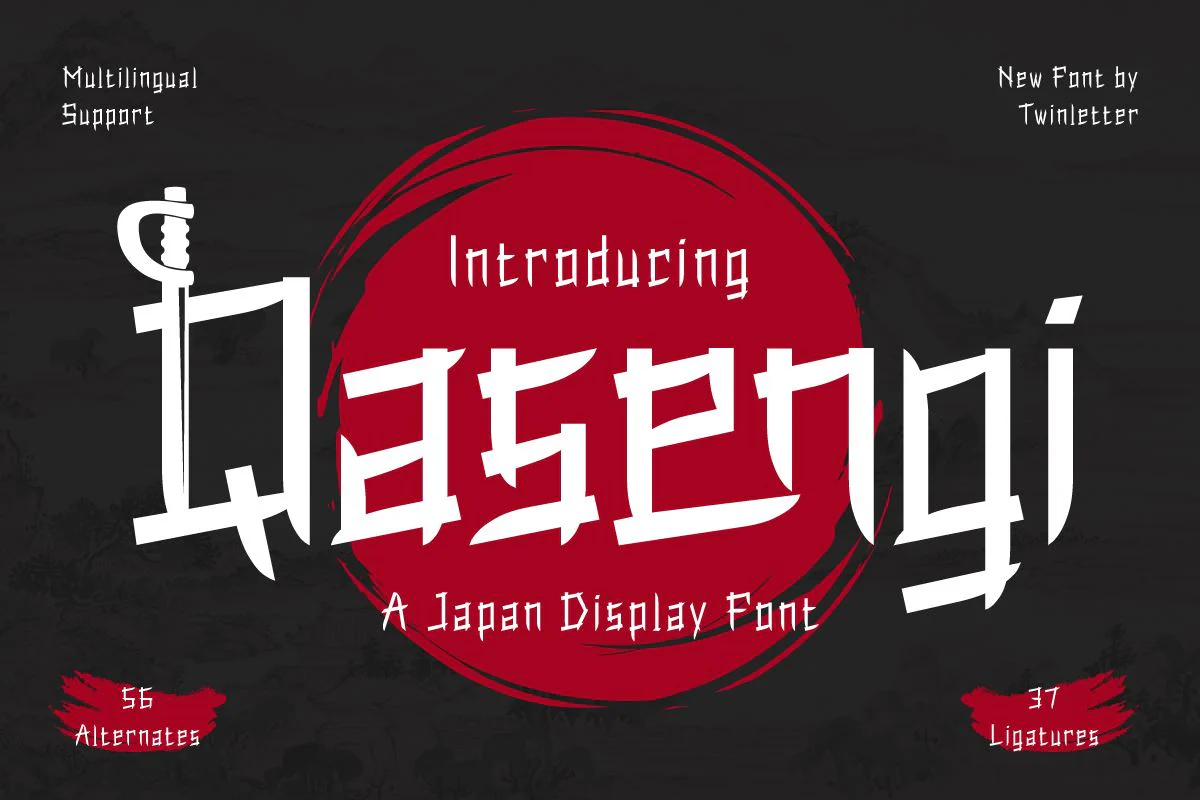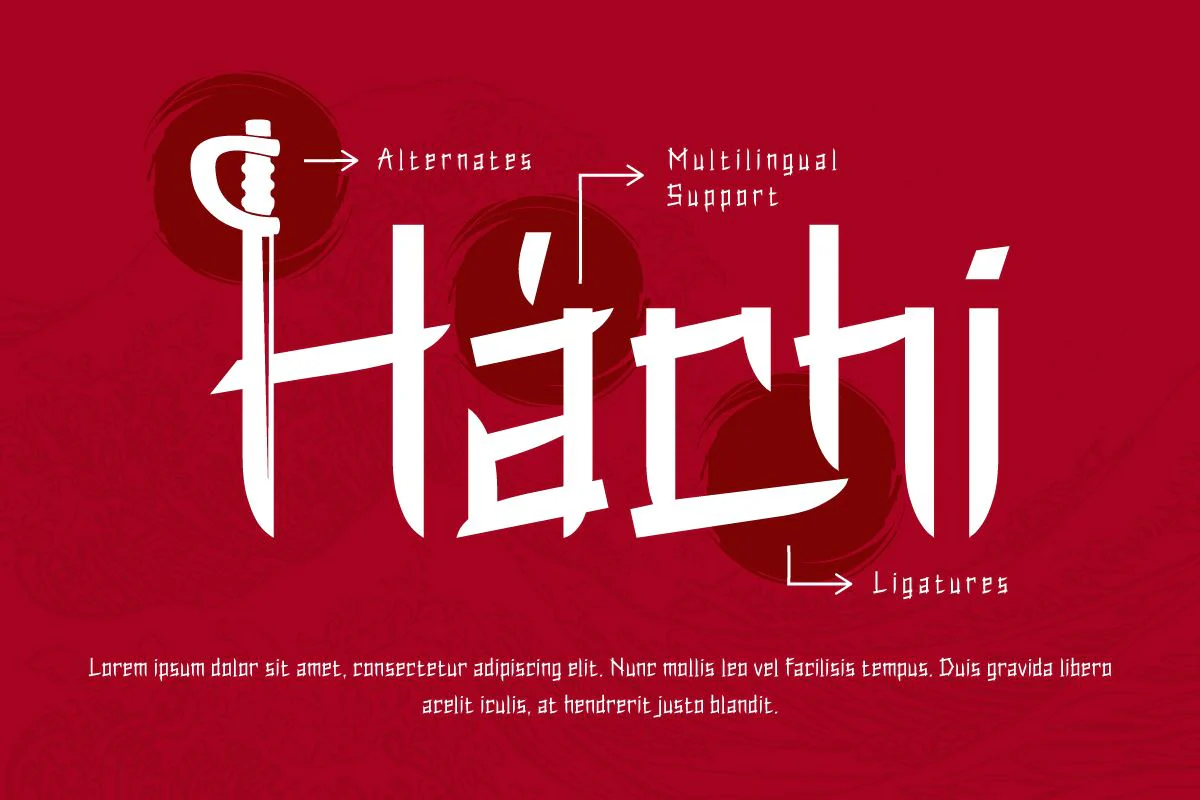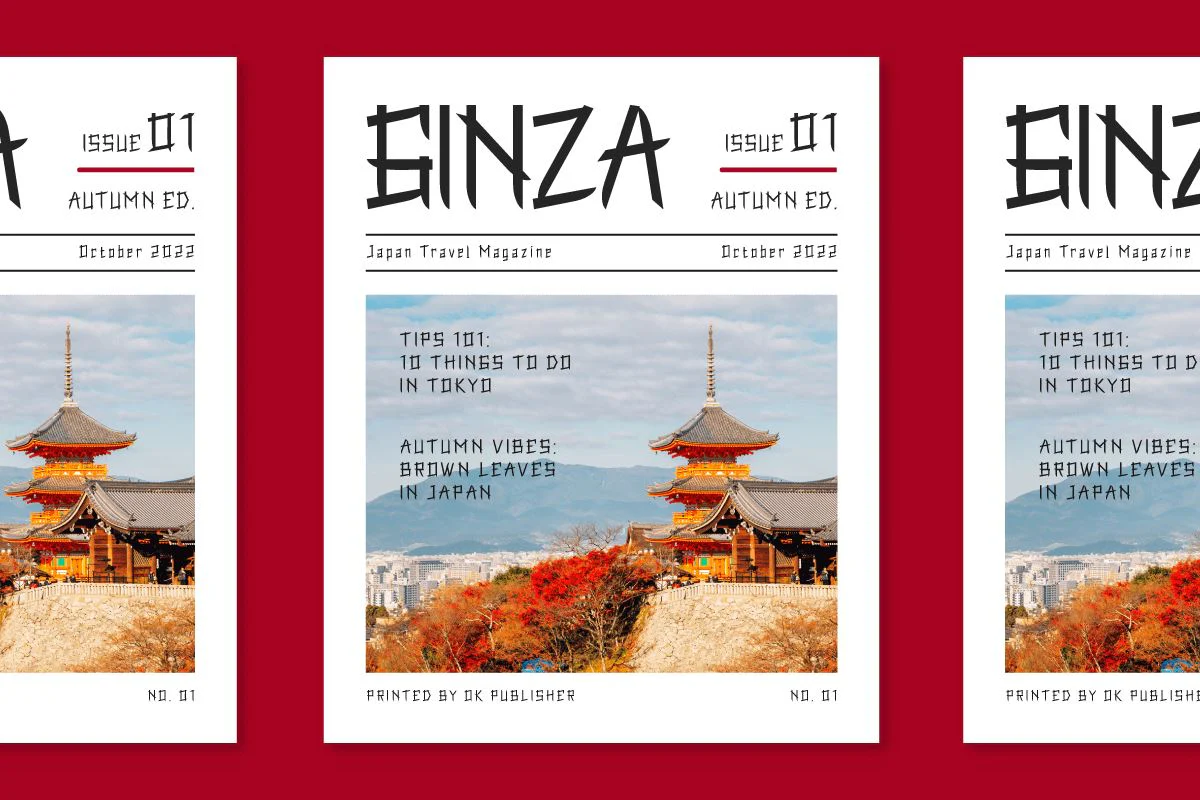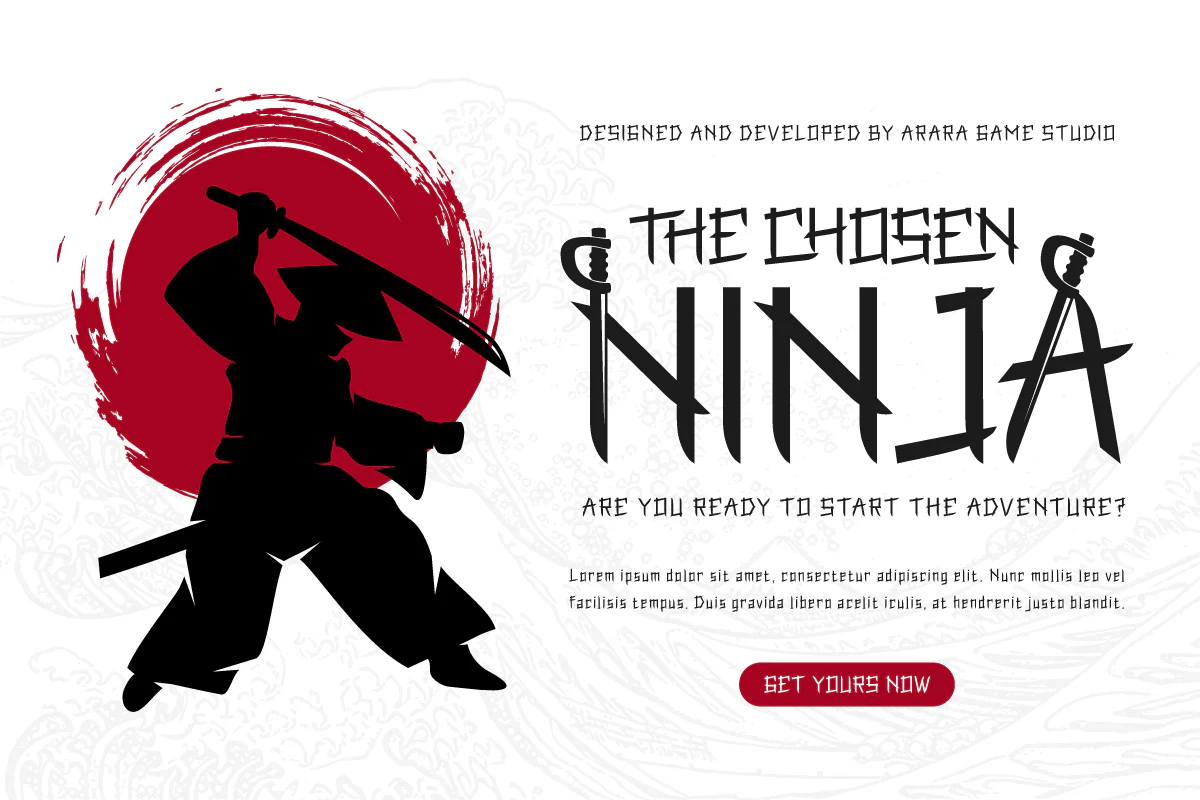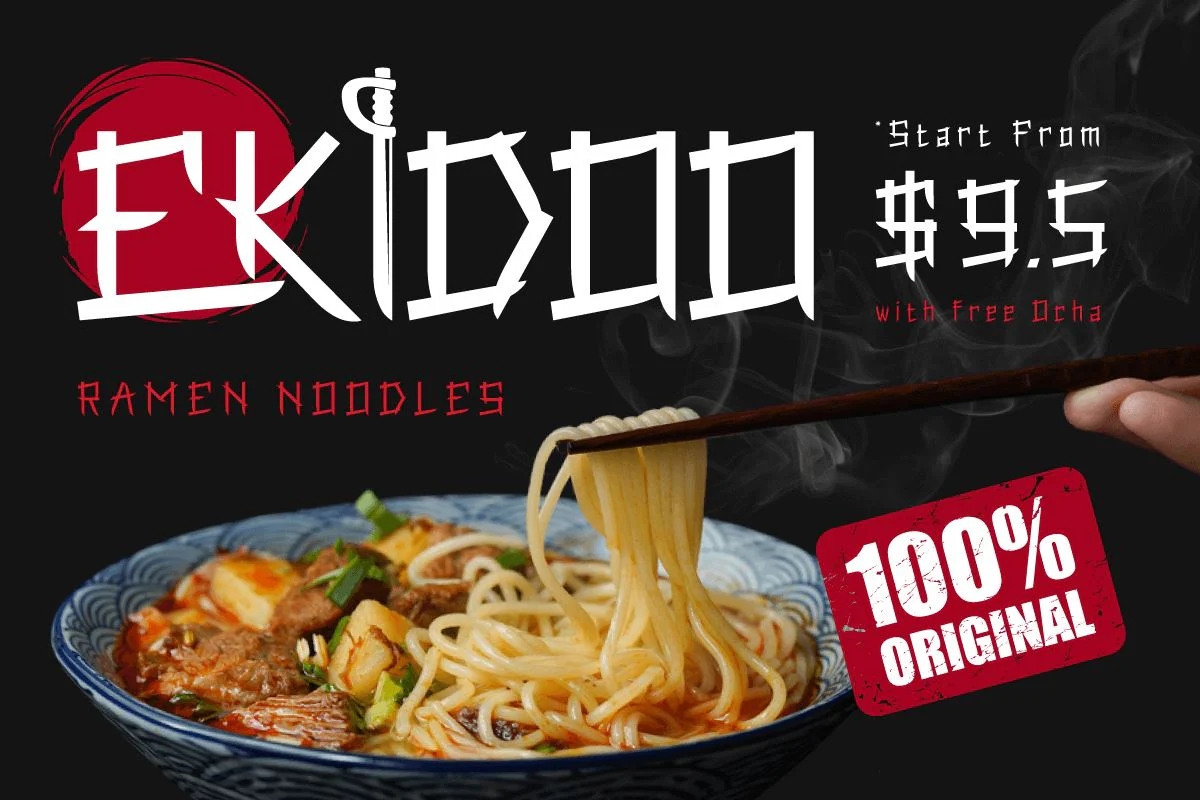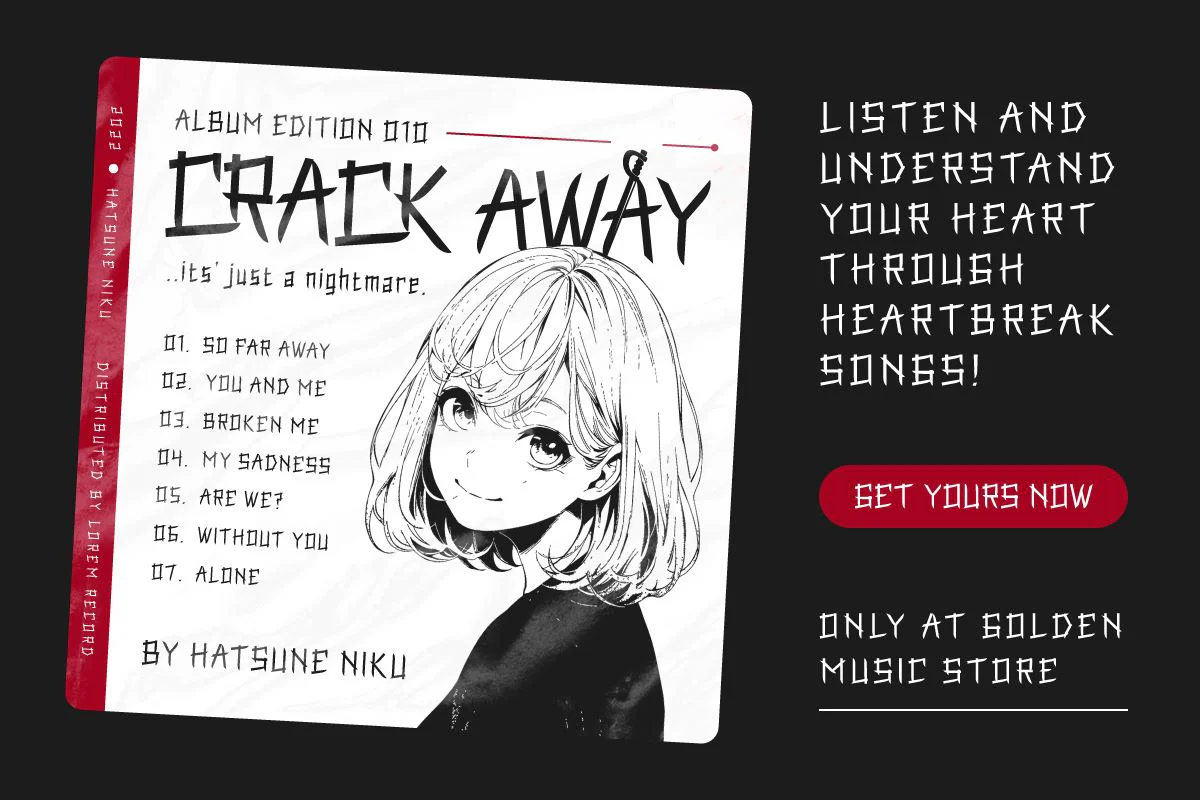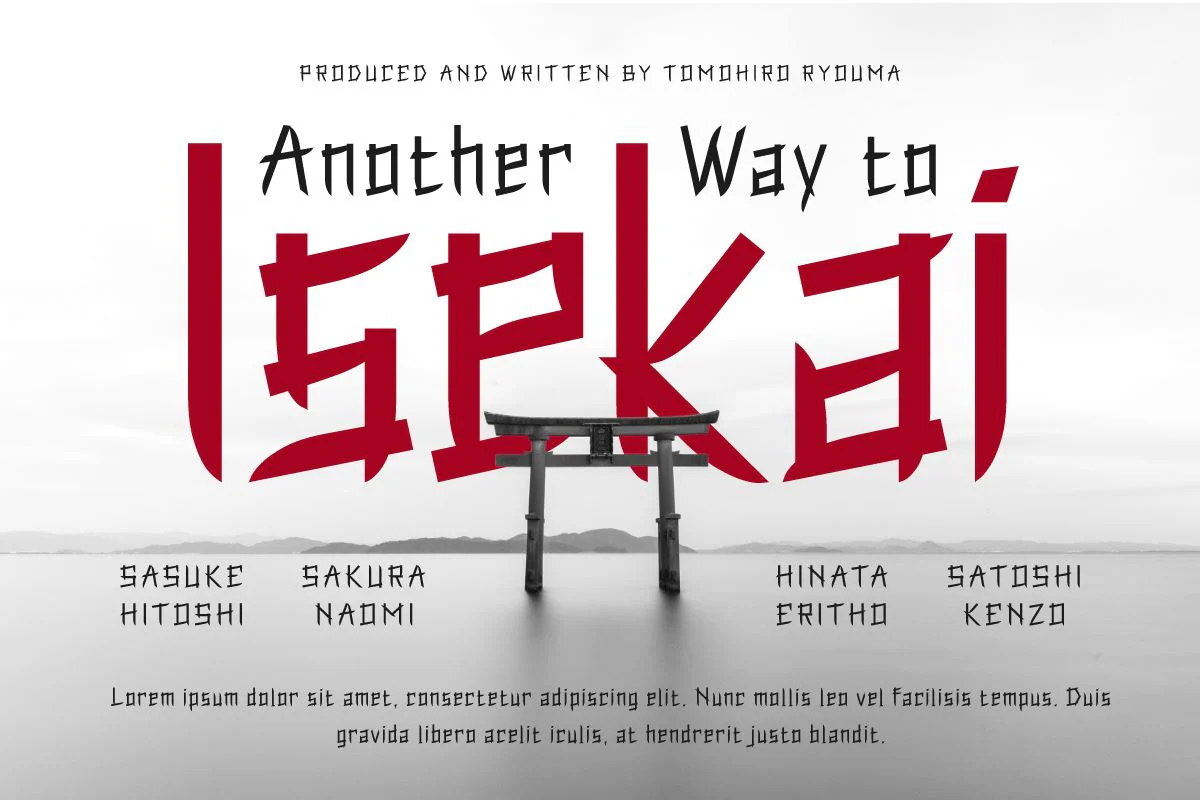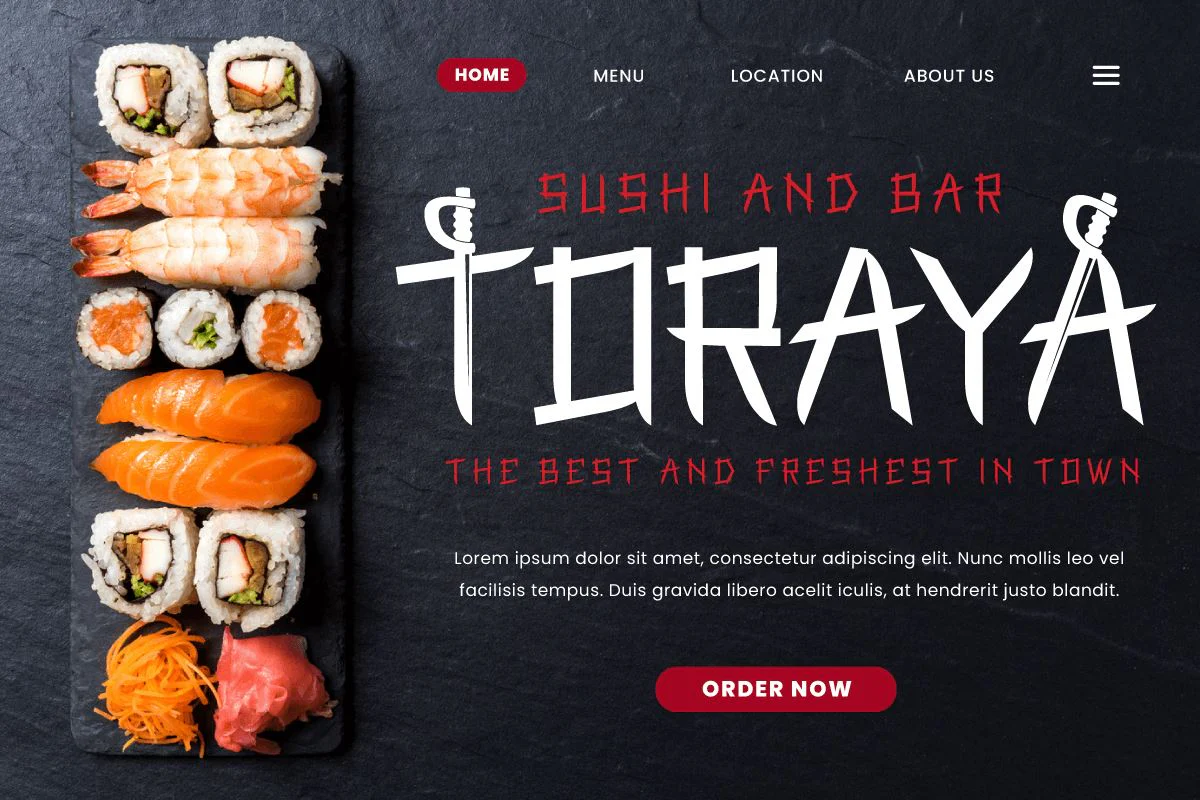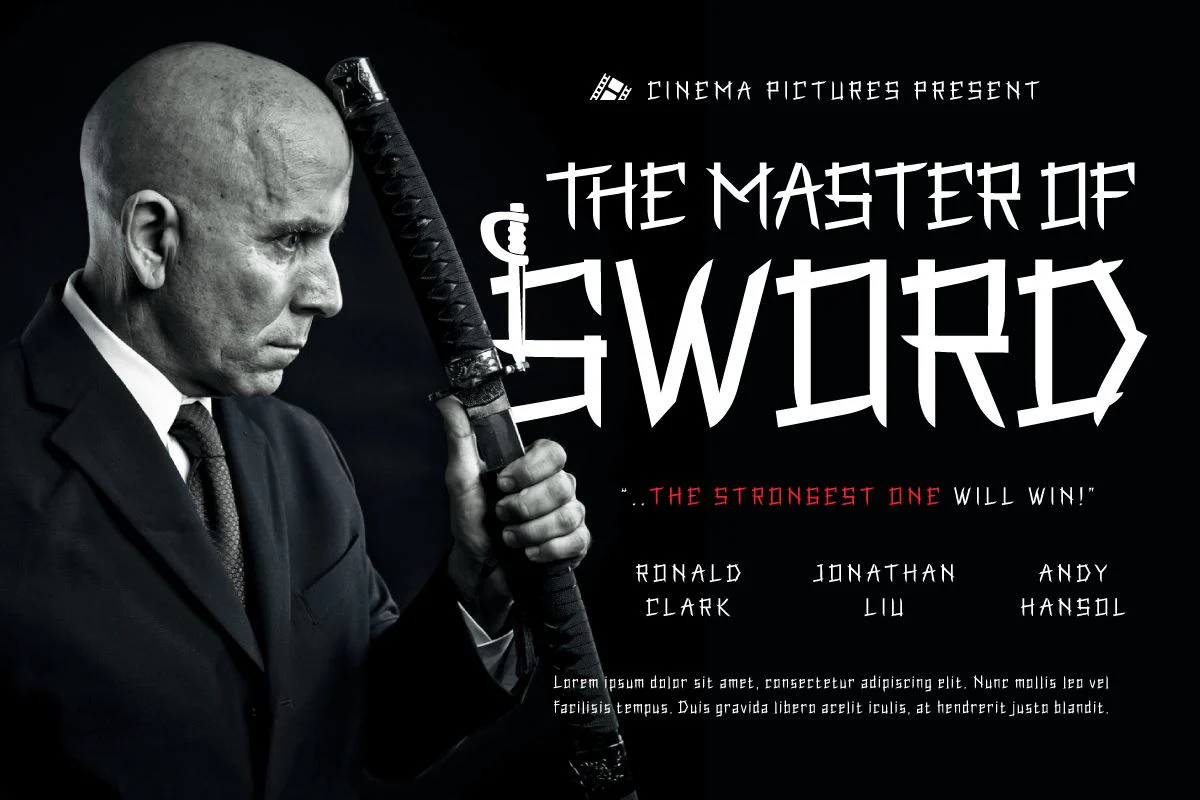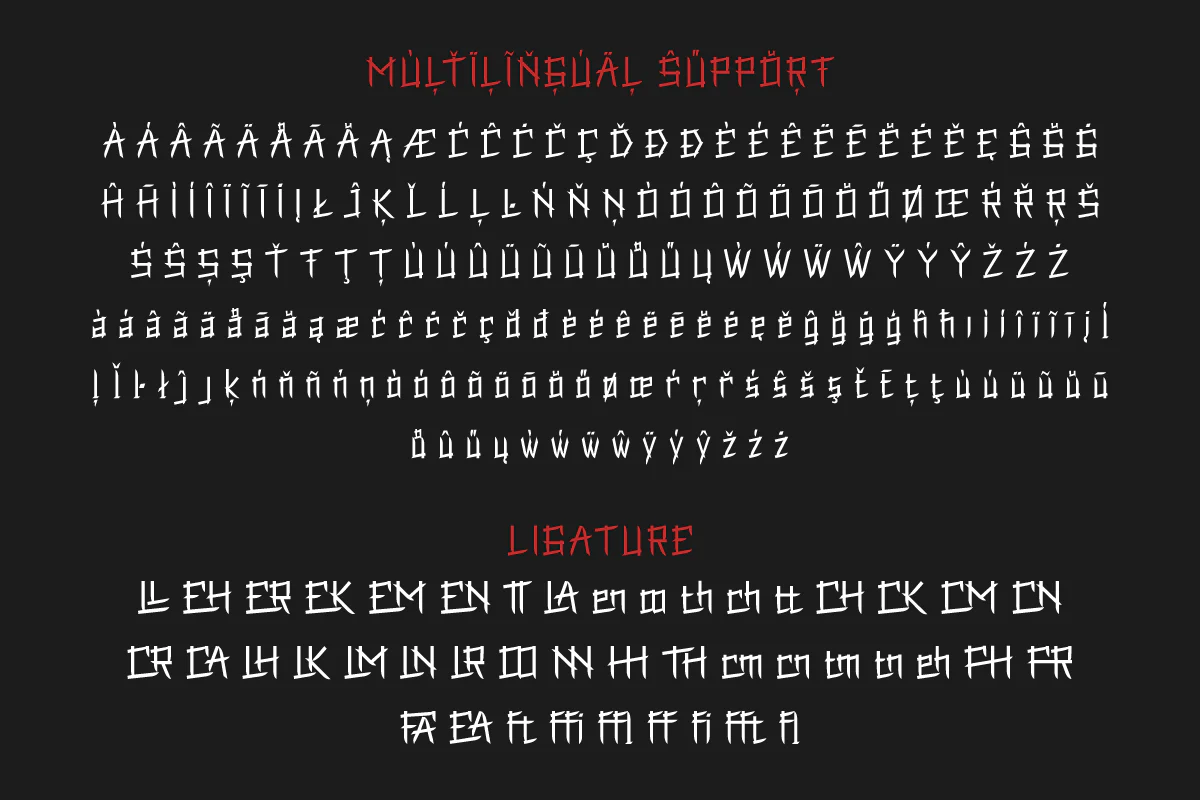
Qasengi | Japan font
Qasengi is a bridge to the cultural wonders of Japan and Southeast Asia in a captivating typographic form. With a strong Japanese theme, this font is the perfect companion for any project that calls for a distinctly Japanese and Southeast Asian touch.
In your designs, Qasengi will bring a very authentic feel. Each letter conveys a deep cultural signature, combining traditional elegance with modern freshness.
The specialty of the Qasengi lies in its features that encourage creativity. With the available ligatures and alternates, you have the tools to create unique and stunning typographical compositions.
Don’t worry about language, because Qasengi supports multilingualism. With this font, you have the ability to convey messages in multiple languages to a global audience.